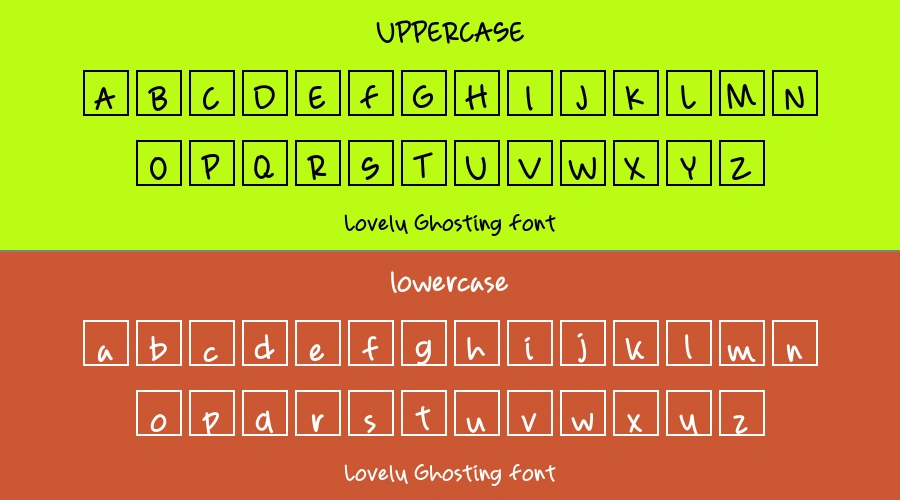
About Lovely Ghosting Font
Designed with precision, Lovely Ghosting Font merges harmonious shapes with aesthetic unity in every character. This versatility makes it particularly effective for mobile applications, where impact and visual authority directly impact communication quality. Each letterform demonstrates meticulous craftsmanship.
Technical excellence shines through elements like creative flair and mathematical symbols, enhancing typographic versatility. In display applications settings, Lovely Ghosting Font proves its worth through superior data presentation. The thoughtful execution of bowl width and brand personality ensures professional results.